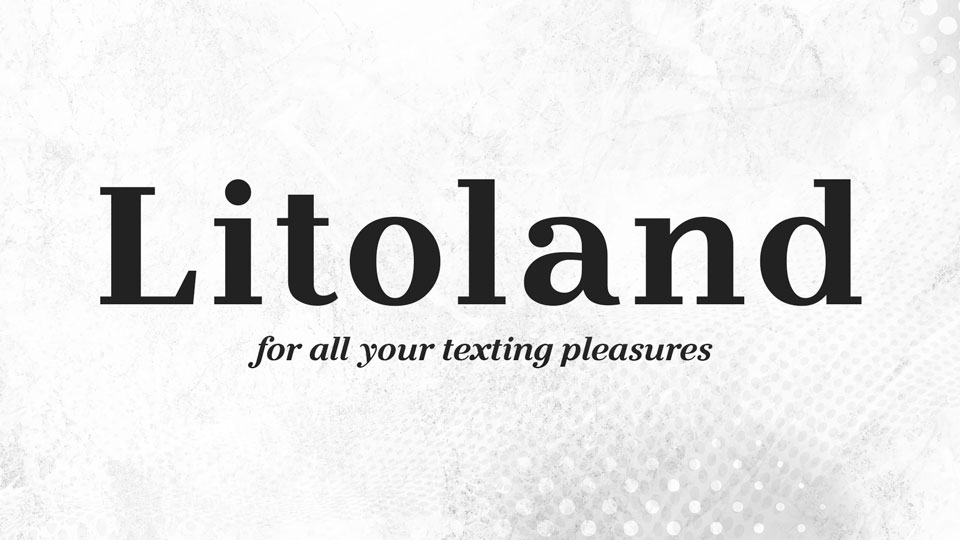
Litoland Font
Litoland is a classic serif font family with medium contrast and good readability. It comes with 3 fonts - Regular, True Italic and Titling, contains full set of glyphs, including multilingual support.
Litoland typeface works well for texts and headlines.